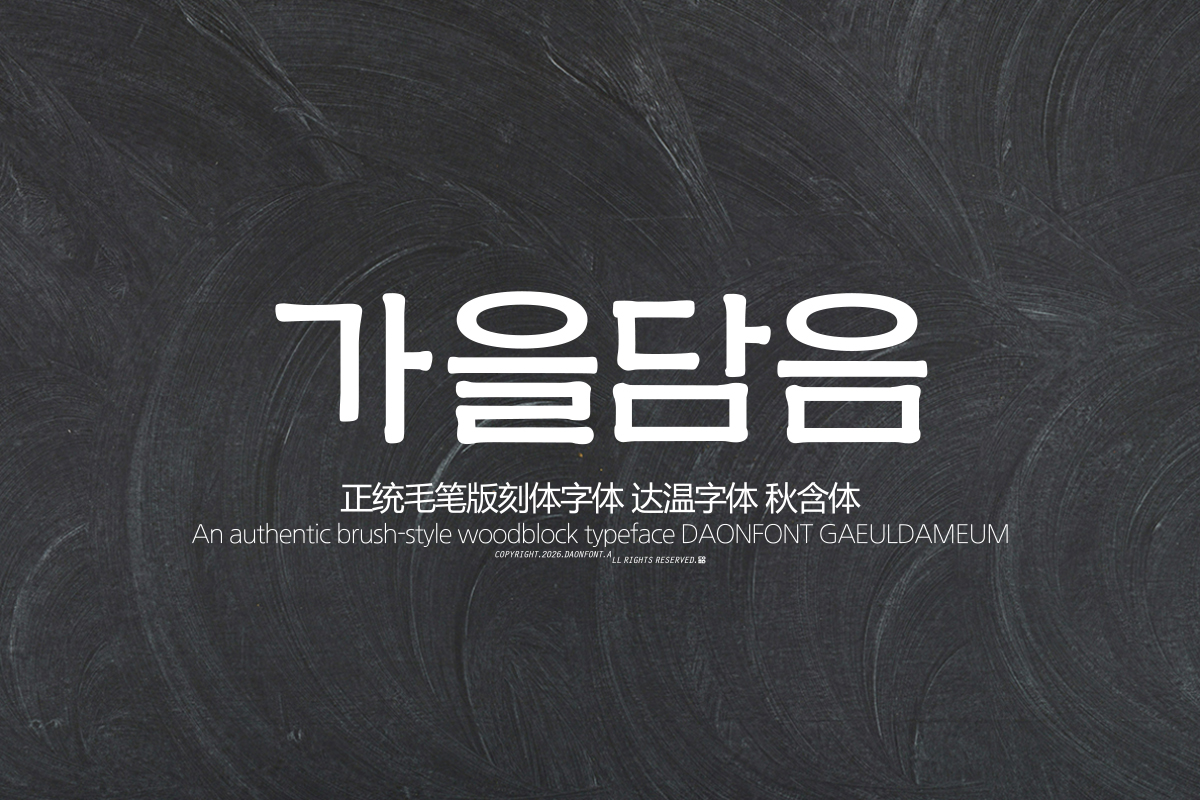
DAON GAEULDAMEUM
DaonFont 'GAEULDAMEUM' is a Hangul typeface designed based on the Panbonche style, capturing the characteristic calm yet solid tone of the style. While possessing a traditional sense of form, it is not excessively heavy, making it a Hangul typeface well-suited for designs with a calm and warm atmosphere.